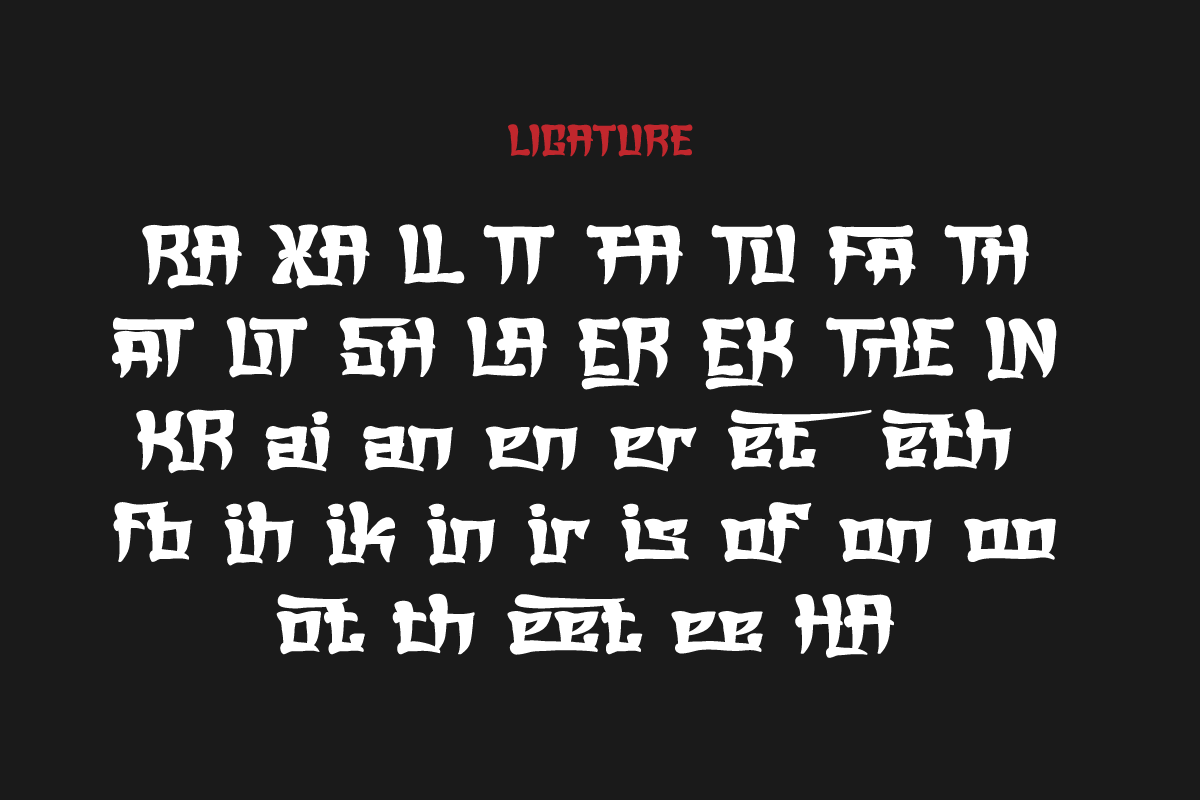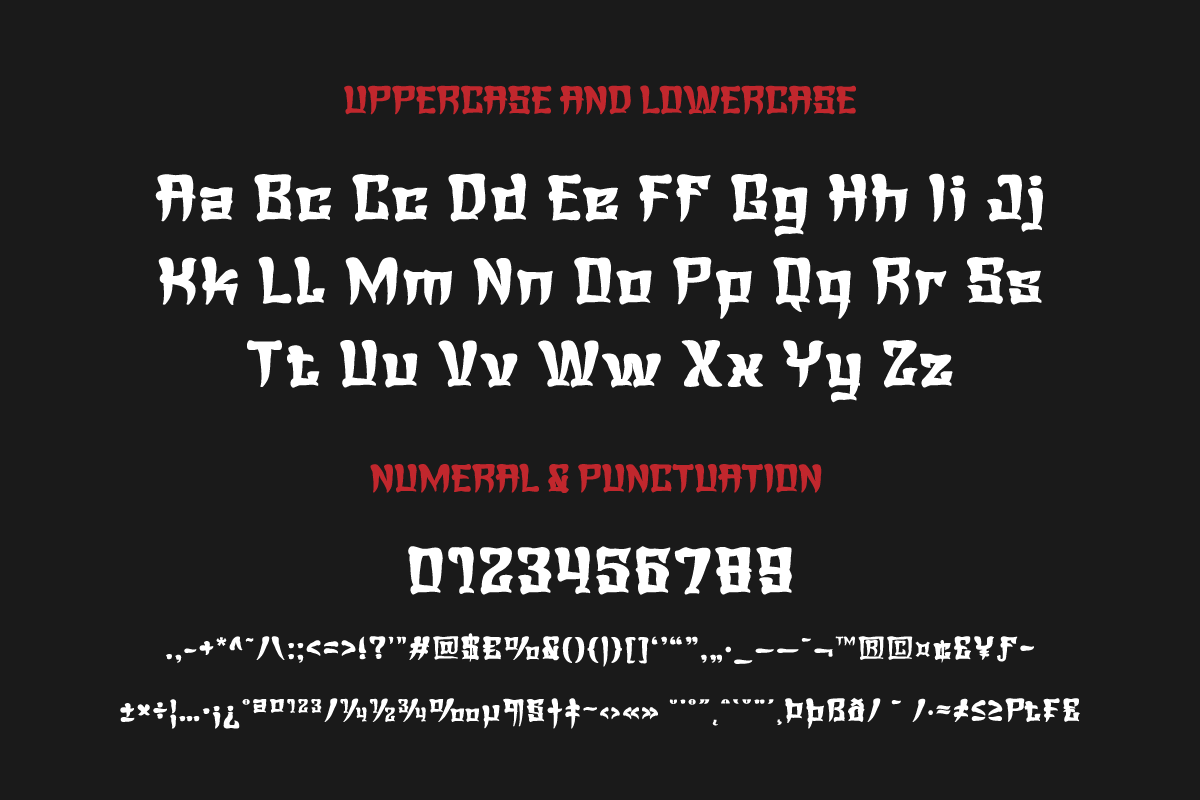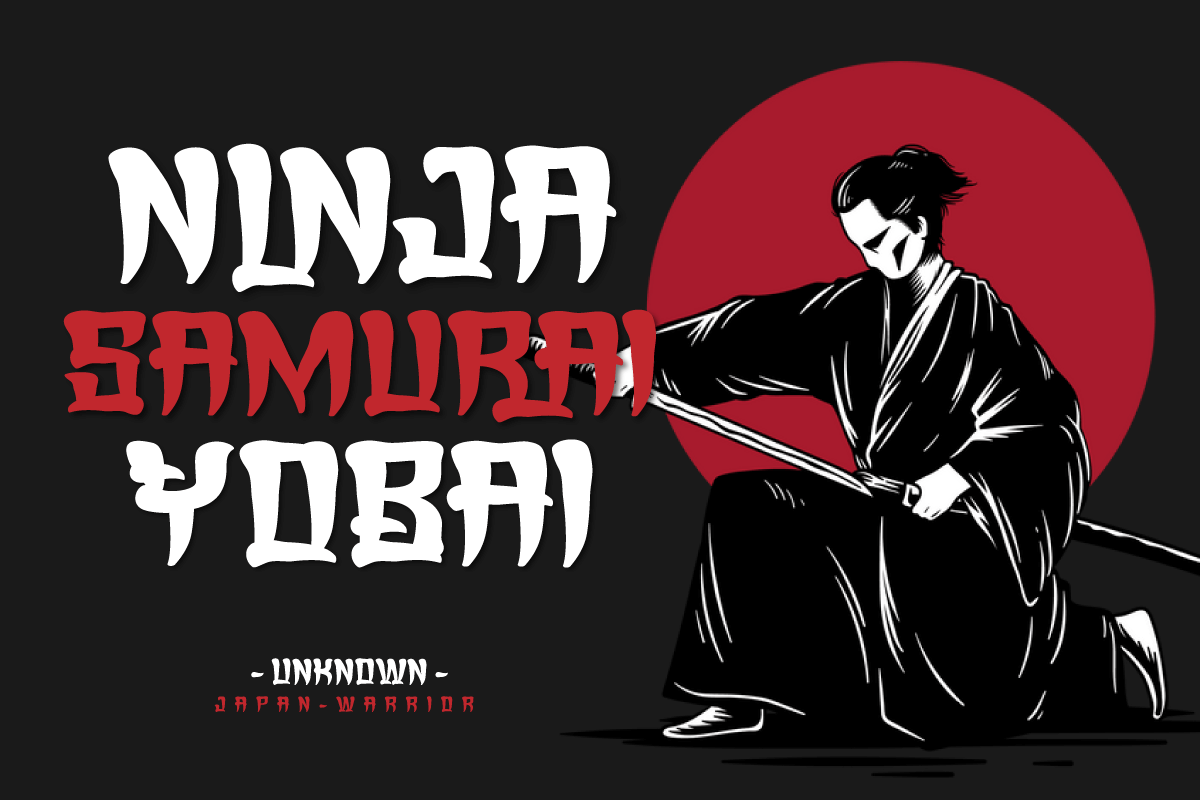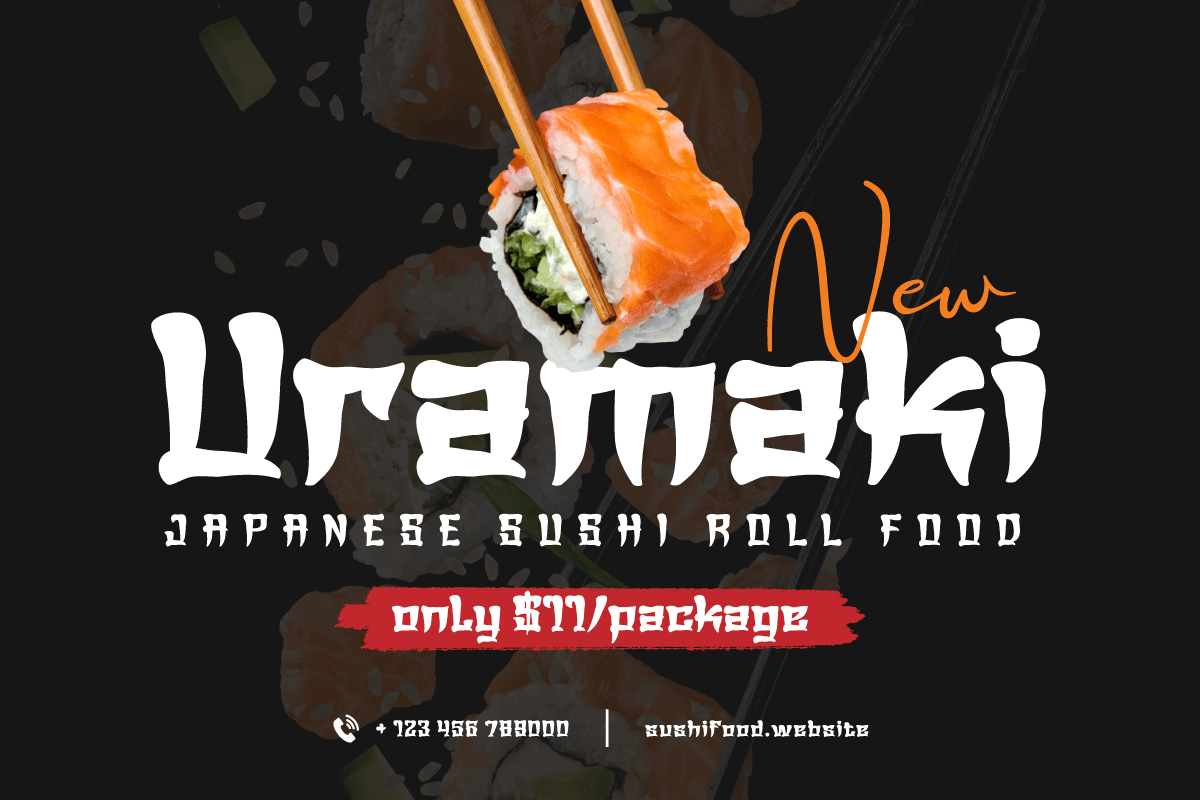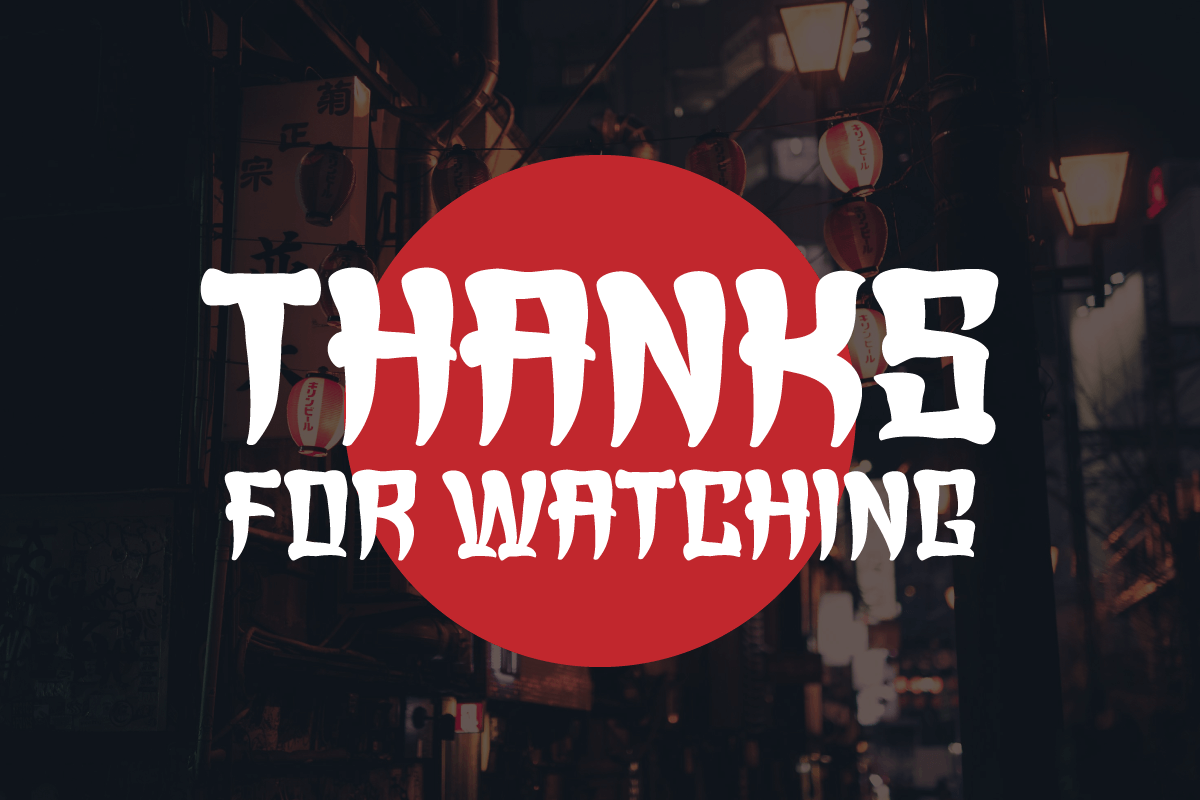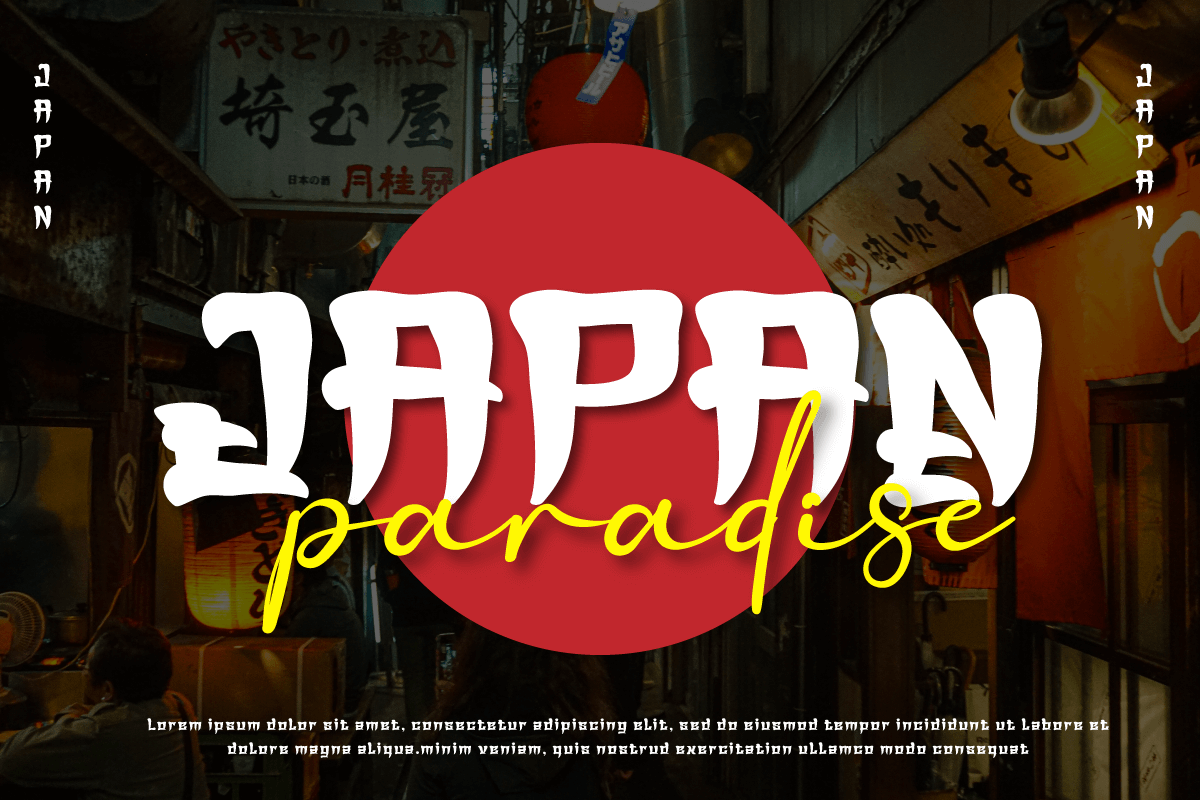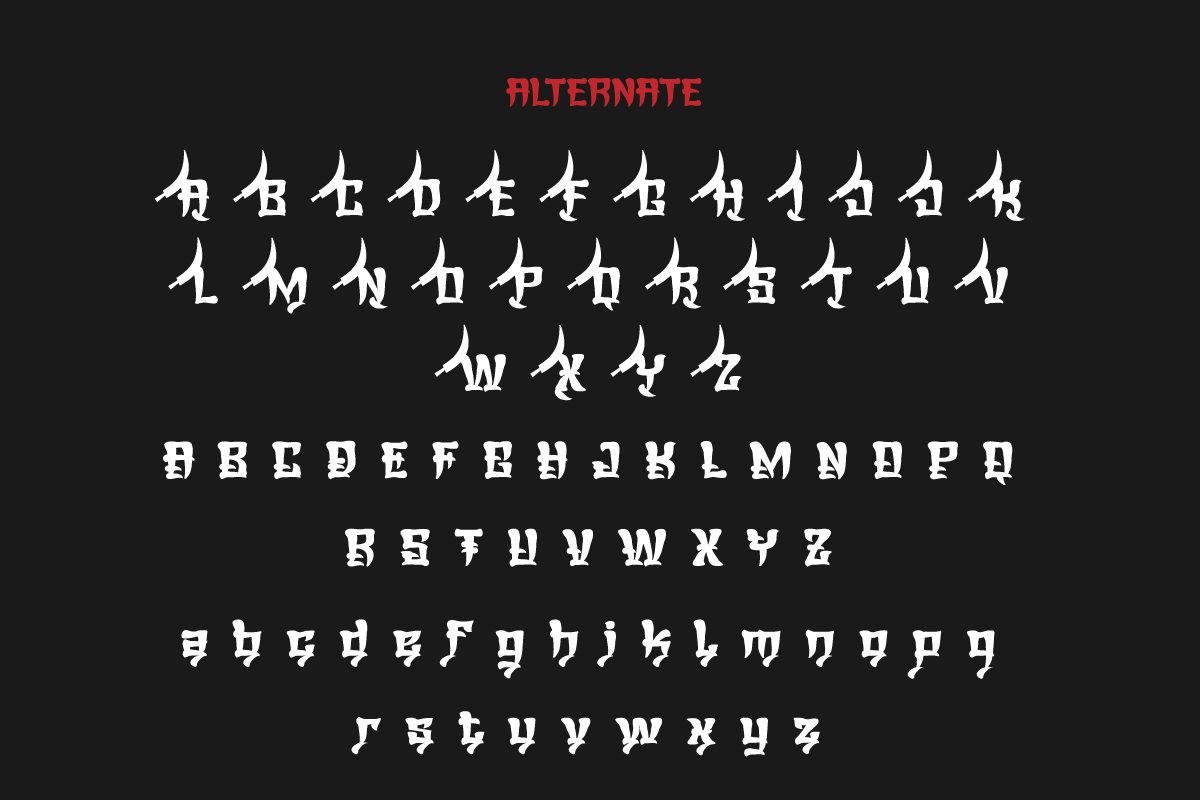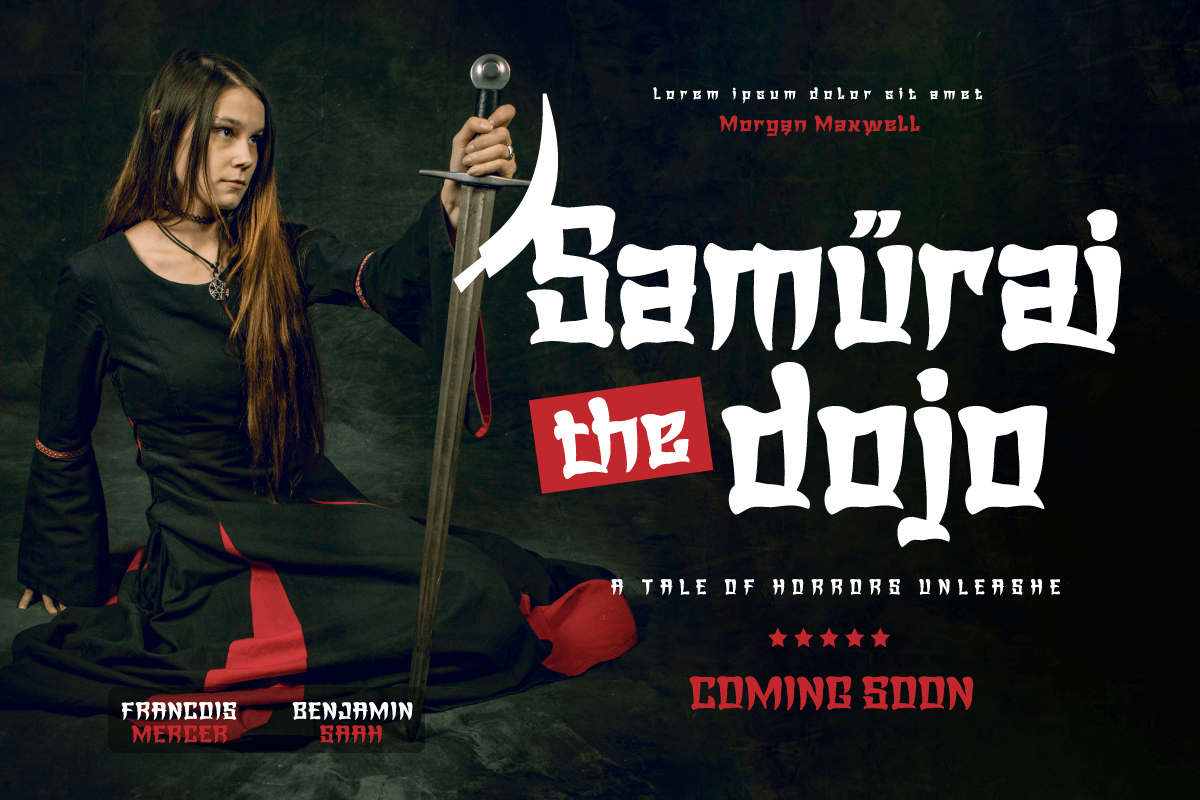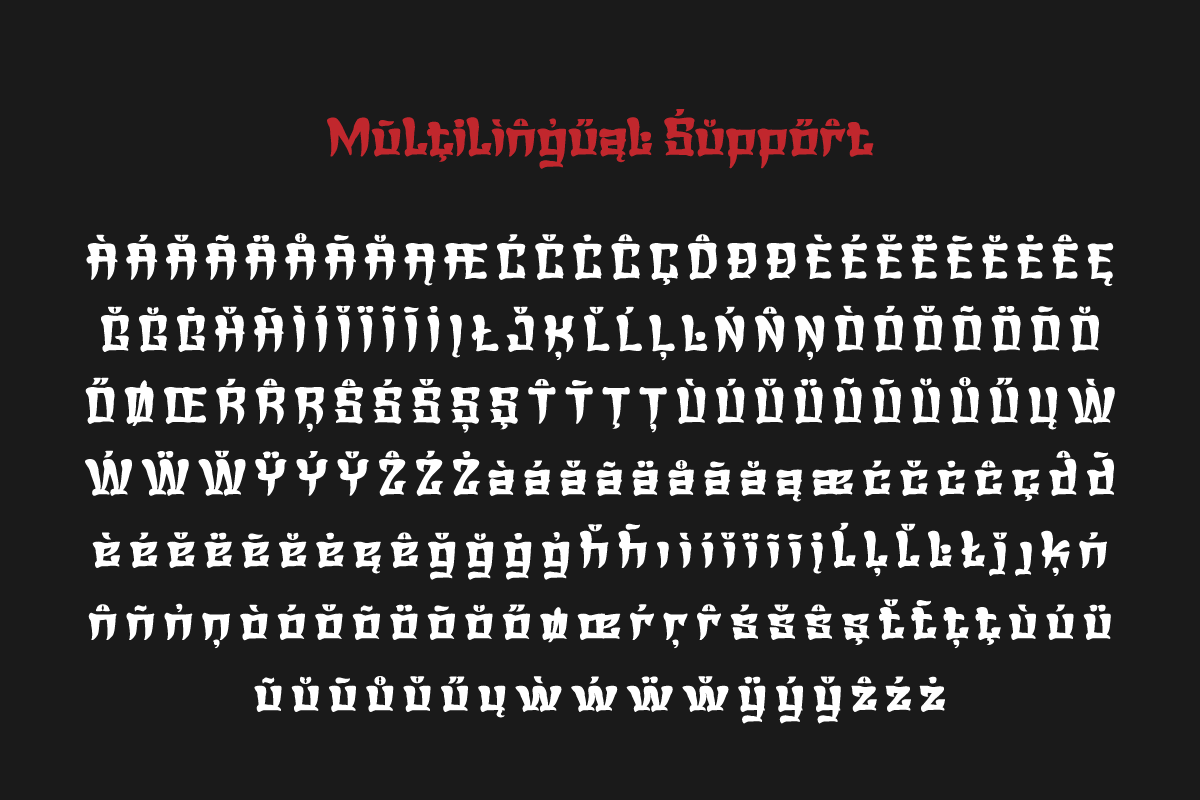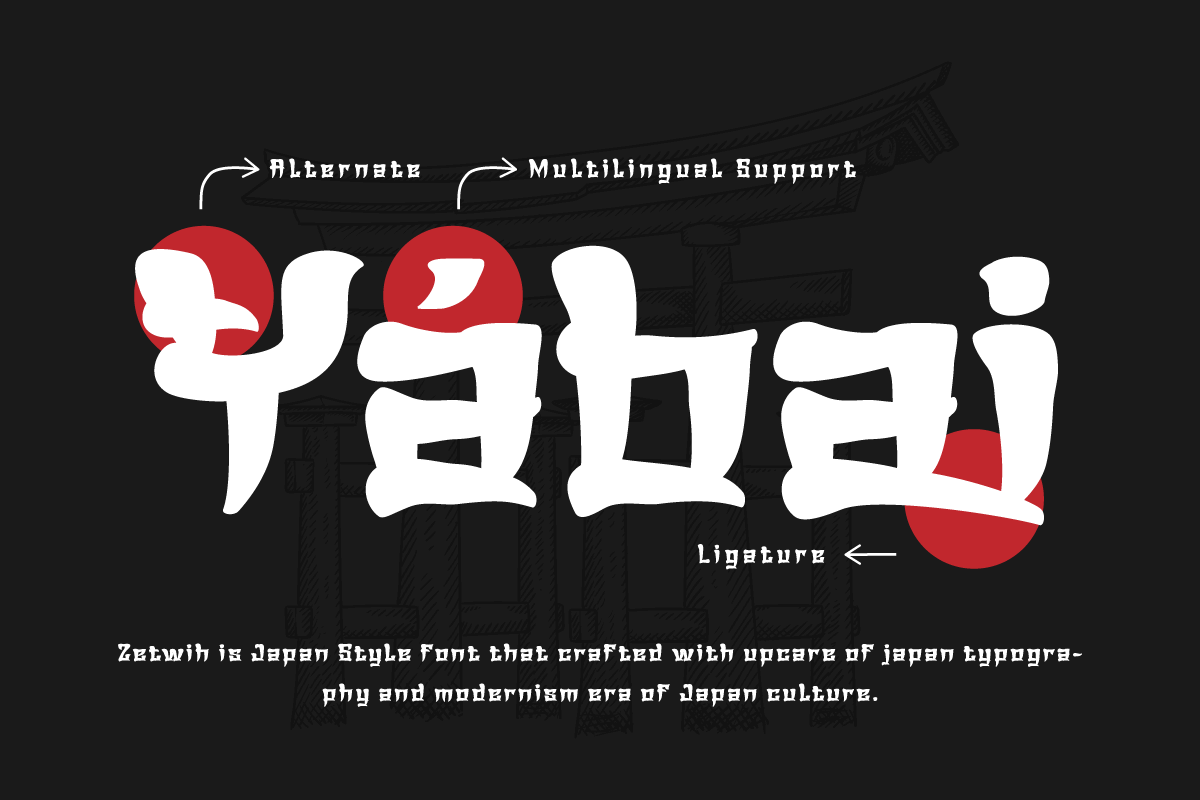
Zetwih | Japan font
Zetwih, is a stunning display font with an alluring Japanese feel. With the beauty and charm of faux Japanese, Zetwih is the perfect solution for projects that require a distinctly Japanese and Southeast Asian touch.
With Zetwih, you can create designs that are themed by Japanese and Southeast Asian culture in an authentic and captivating style. Each letter is carefully designed, combining elements of a distinctly Japanese aesthetic with a modern twist.
Zetwih’s top features give you flexibility and creativity in your typography designs. With the available ligatures and alternates, you can combine beautiful characters and create interesting variations in letter composition.
Zetwih also supports multilingualism, allowing you to express your message in multiple languages and reach an international audience. That way, you can adapt this font to the needs and preferences of your target market.
- Alternate, Ligature